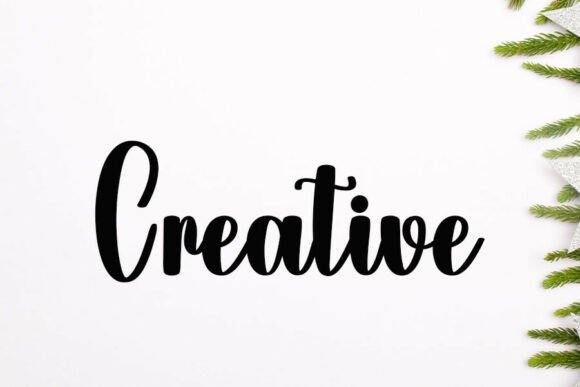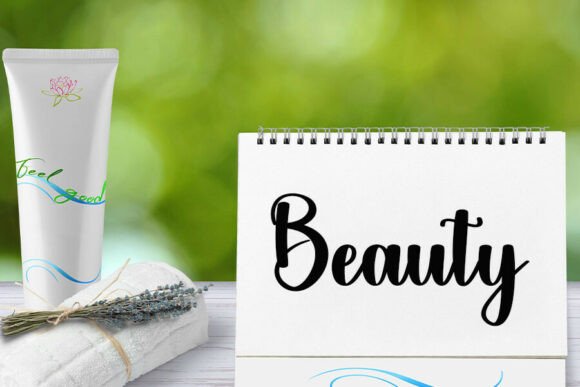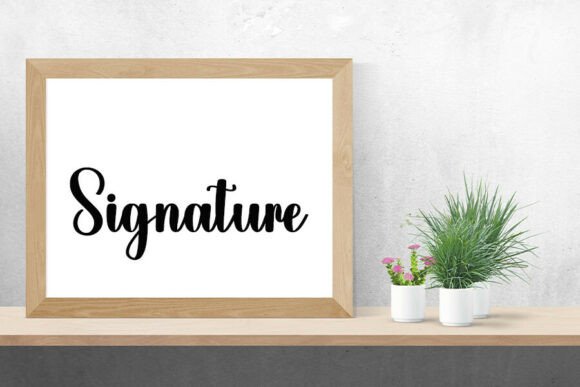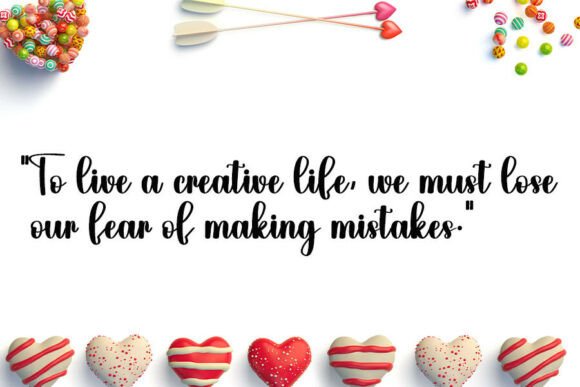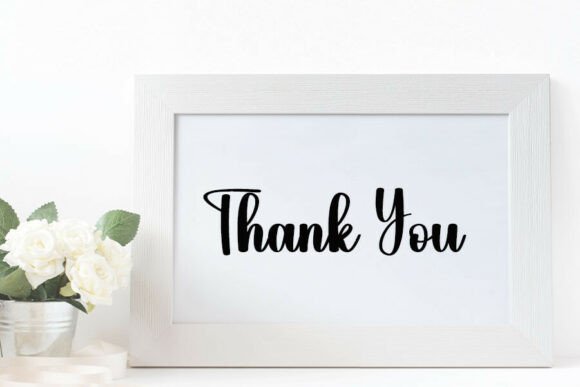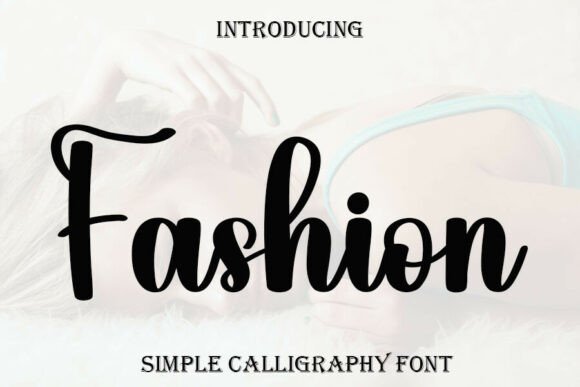
Fashion Font: Elevate Your Designs with a Delicate Handwritten Style
Are you a designer or crafter looking for a unique and cool font to add a touch of elegance to your designs? Look no further than Fashion Font, a delicate handwritten font carefully crafted to make your creations stand out. In this article, we’ll explore the features and uses of Fashion Font, and how it can elevate your designs to the next level.
What is Fashion Font?
Fashion Font is a beautiful, handwritten font designed to bring a touch of sophistication and style to your designs. With its delicate and elegant lines, this font is perfect for creating cool and unique designs that will capture the attention of your audience. Whether you’re working on a letter, invitation, food product label, or title, Fashion Font is the perfect choice.
Features of Fashion Font
Fashion Font comes with a range of features that make it an ideal choice for designers and crafters. Some of its key features include:
- Delicate Handwritten Style: Fashion Font has a delicate, handwritten style that adds a touch of elegance to your designs.
- Cool and Unique Design: This font is carefully crafted to create a cool and unique design that will make your creations stand out.
- Versatile: Fashion Font can be used for a wide range of design projects, including letters, invitations, food products, titles, and more.
- Easily Readable: Despite its delicate style, Fashion Font is easily readable, making it perfect for body text and headings.
Uses of Fashion Font
Fashion Font is a versatile font that can be used for a wide range of design projects. Here are some of the ways you can use Fashion Font:
- Invitations: Use Fashion Font to create beautiful and elegant invitations for weddings, parties, and other special occasions.
- Food Product Labels: Add a touch of style to your food product labels with Fashion Font, making them stand out on store shelves.
- Letterheads: Use Fashion Font to create elegant letterheads for personal or business correspondence.
- Titles and Headings: Use Fashion Font to create stunning titles and headings for your blog posts, articles, and other written content.
- Branding and Packaging: Use Fashion Font to create a consistent brand identity across your branding and packaging materials.
Tips for Using Fashion Font
Here are some tips for using Fashion Font to get the most out of this beautiful font:
- Use it Sparingly: Fashion Font is a delicate font, so use it sparingly to avoid overwhelming your design.
- Pair it with Other Fonts: Pair Fashion Font with other fonts to create a unique and interesting design.
- Experiment with Colors: Experiment with different colors to find the perfect combination that works with Fashion Font.
- Pay Attention to Kerning: Pay attention to kerning to ensure that your text is evenly spaced and easy to read.
Fashion Font is a beautiful, delicate handwritten font that can elevate your designs to the next level. With its cool and unique style, versatility, and ease of use, Fashion Font is perfect for designers and crafters looking to add a touch of elegance to their creations. Whether you’re working on a letter, invitation, food product label, or title, Fashion Font is the perfect choice. So why wait? Download Fashion Font today and start creating stunning designs that will capture the attention of your audience.